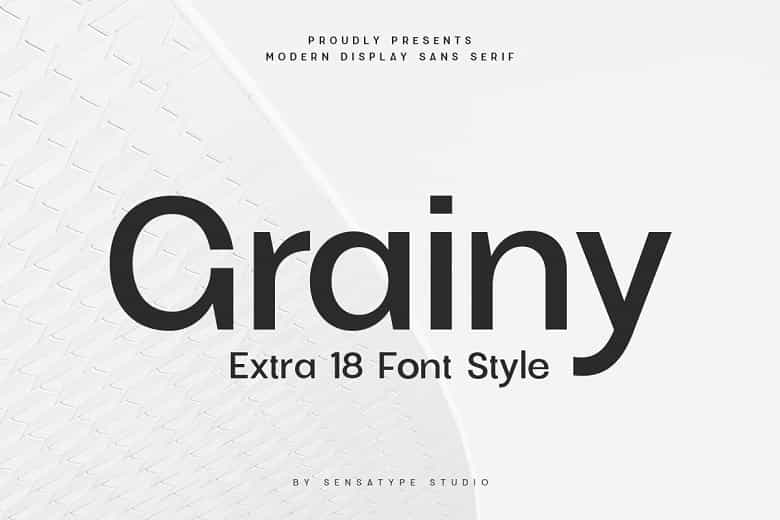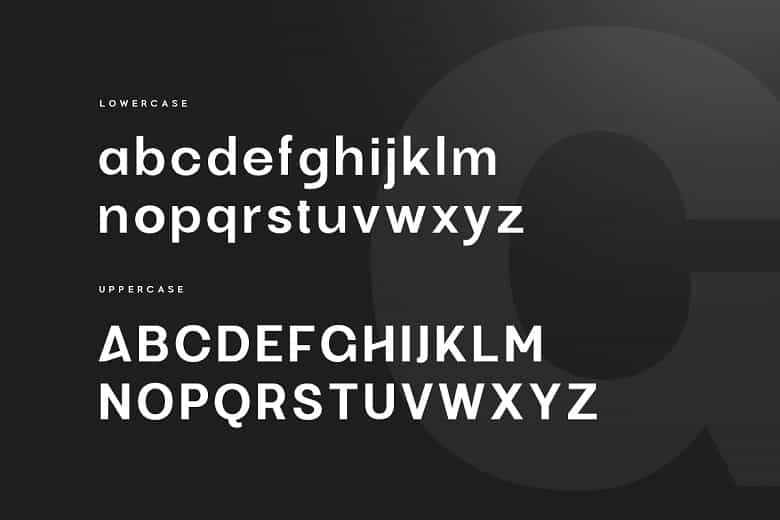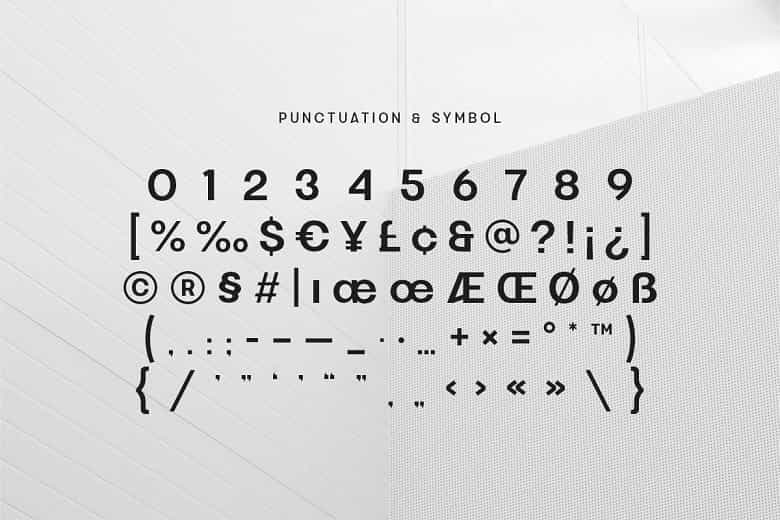
Grainy Font
Grainy is an elegant sans serif font that is specially design for branding, title and more standout typography requires, with extra alternative styles that make your design more interesting. It would be nice to incorporate your style and headline overview for the business, technology, actions, and minimalistic theme.